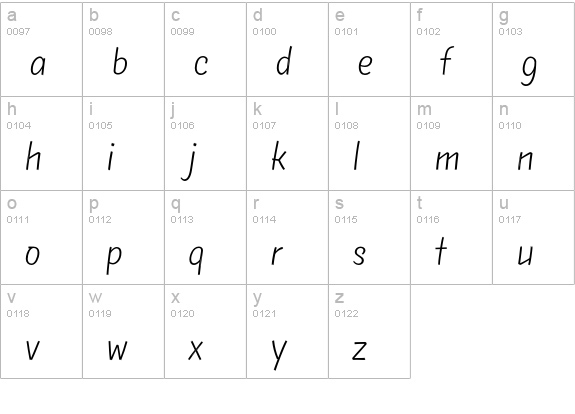
TT Masters Birds Light is a refined, elegant variant in the TT typeface family \xE2\x80\x94 well suited to elegant body text, refined sub-headings, and luxury branding.
TT Masters Birds Light font is a stunning and elegant typeface that exudes sophistication and charm. With its delicate lines and graceful curves, this font is perfect for adding a touch of refinement to any design project. The light weight of the font lends a sense of airiness and grace, making it ideal for use in headings, quotes, invitations, and more. What makes TT Masters Birds Light font even more appealing is that it is available for free download at FontsMarket.com. This means that you can easily access this beautiful font and incorporate it into your designs without any cost. Whether you're working on a personal project or a professional assignment, TT Masters Birds Light font is sure to elevate your work and leave a lasting impression. Download it today and let your creativity soar with this exquisite typeface.